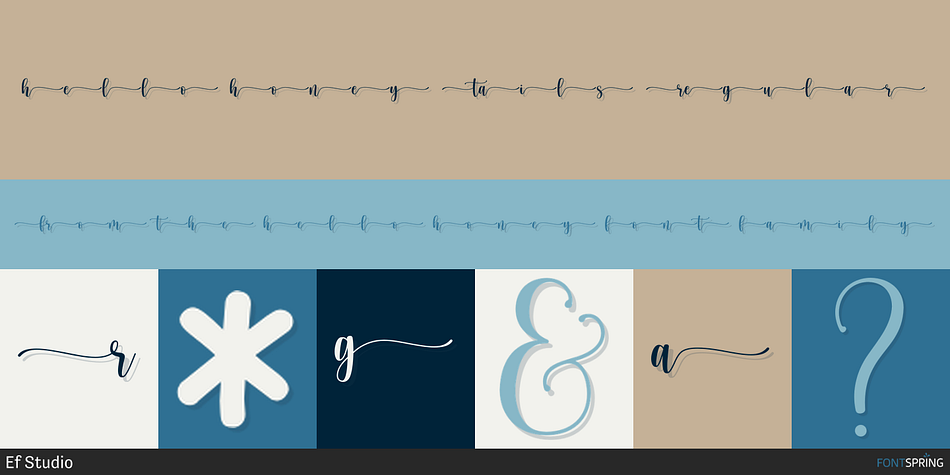
hello honey Tails Regular
hello honey is a multiple classification font family. This typeface has five styles and was published by Ef Studio.
• Initials
• Uppercase beginning swash
hello honey is a beautiful chic script that is suitable for branding, wedding invitations, and other romantic projects. Font Features :
• Lowercase beginning and ending swash
• Uppercase beginning swash
• Connecting heart
• Initials